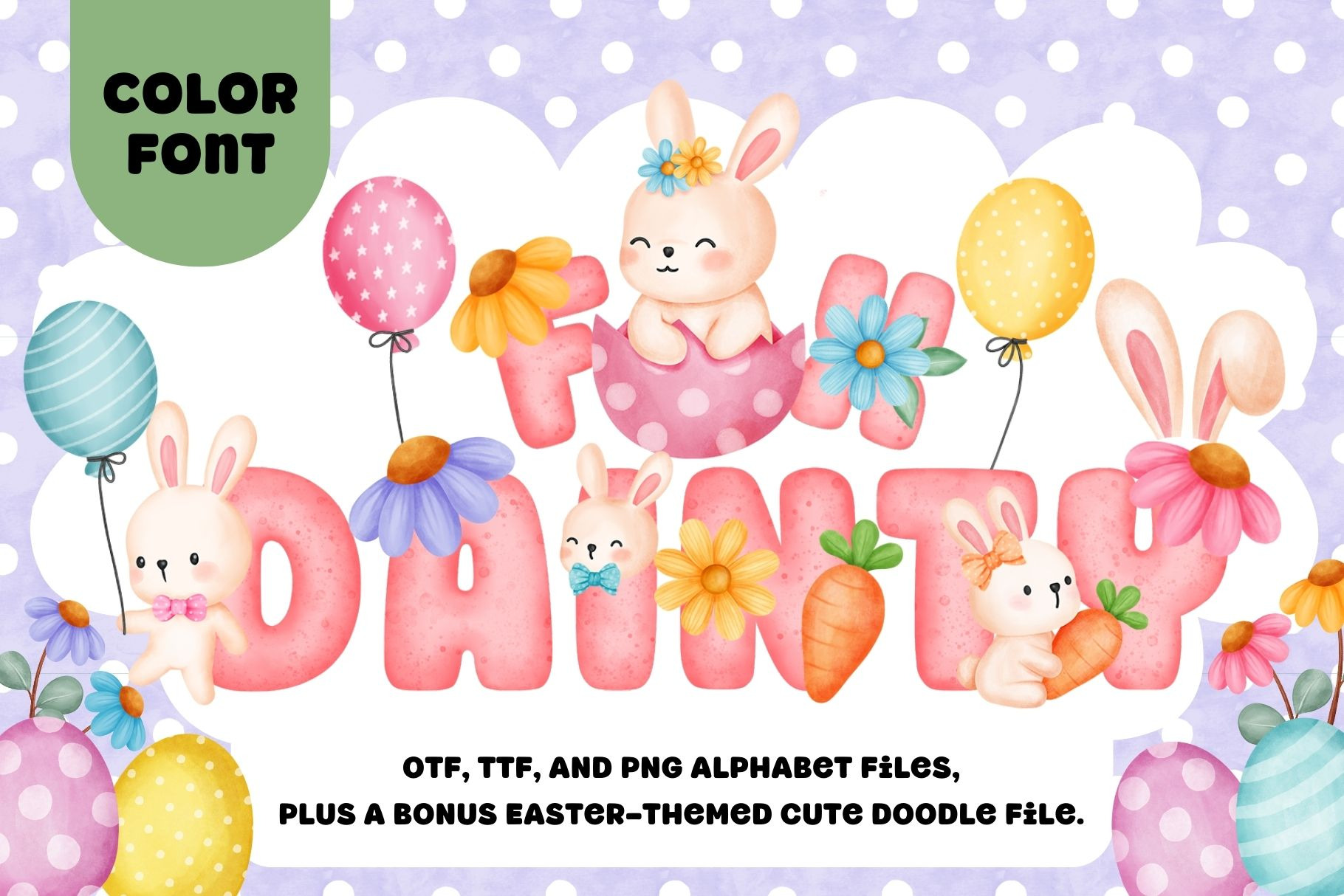
Fox Dainty Color Font
Fox Dainty is an adorable color font perfect for adding a sweet, festive touch to your designs. Featuring soft, pastel-colored letters with a delightful hand-drawn texture, this font is inspired by Easter and springtime cheer.
Each character is designed with a playful and whimsical feel, making it ideal for greeting cards, invitations, scrapbooking, branding, and children's projects. The set includes uppercase letters and numbers in OTF, TTF, and PNG formats, ensuring versatility across different creative platforms.
As a bonus, Fox Dainty comes with an Easter-themed doodle pack filled with cute bunnies, colorful balloons, flowers, carrots, and decorative elements to enhance your designs effortlessly.
Make your projects bloom with charm and cuteness using Fox Dainty!